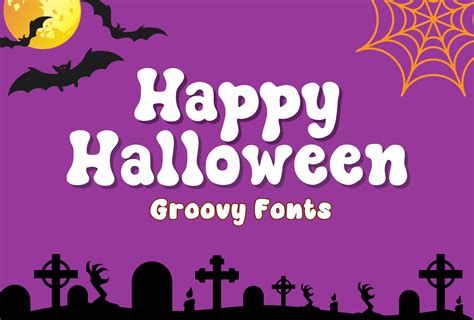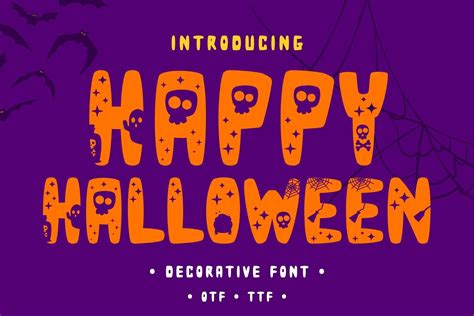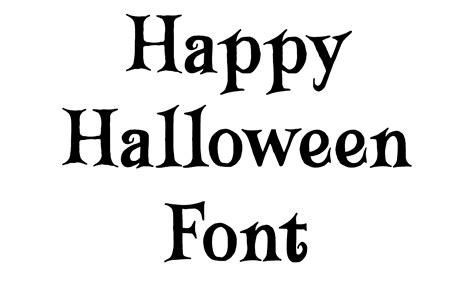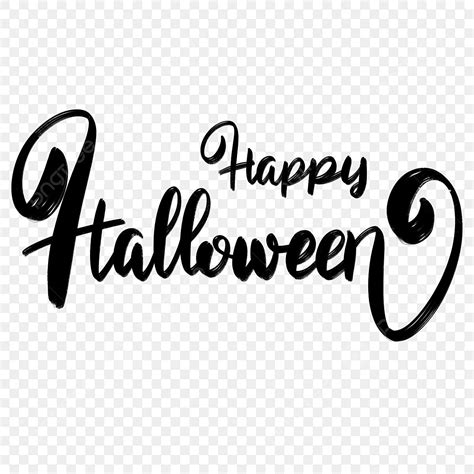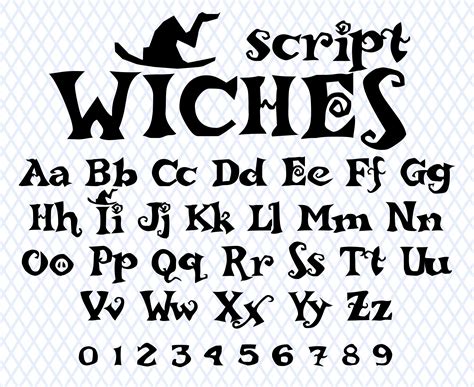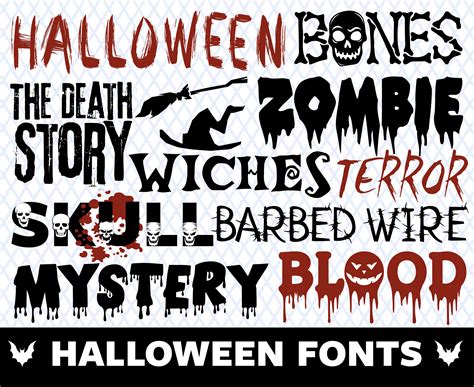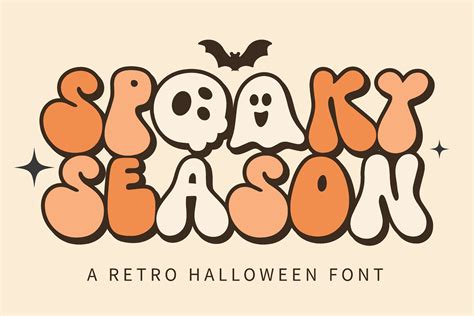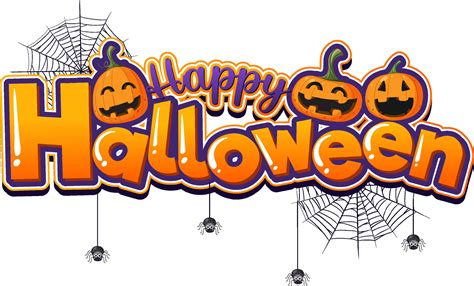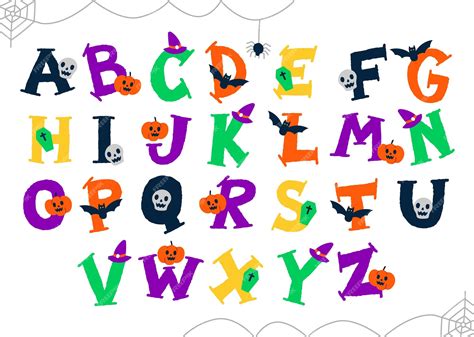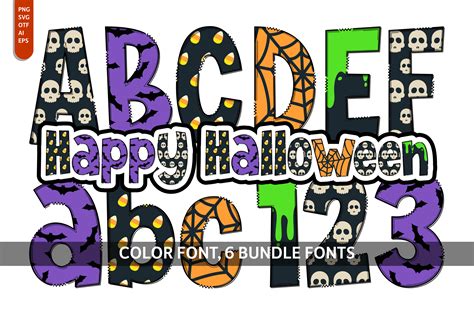
Halloween is a time of year when creativity and spooky aesthetics take center stage. One of the most exciting ways to embrace the spirit of the season is by incorporating a Happy Halloween Font into your designs. Whether you're creating invitations, decorations, or digital content, the right font can set the perfect eerie or playful tone. This guide will walk you through everything you need to know about selecting, using, and customizing a Happy Halloween Font to make your Halloween projects stand out.
Understanding the Importance of a Happy Halloween Font
A Happy Halloween Font is more than just a typeface; it's a way to convey the essence of the holiday. The right font can evoke feelings of excitement, mystery, and fun, making your projects more engaging and memorable. Whether you're designing for print or digital media, choosing the perfect Happy Halloween Font can enhance the overall aesthetic and make your creations more impactful.
Types of Happy Halloween Fonts
There are several types of Happy Halloween Fonts that you can choose from, each with its unique characteristics. Here are some of the most popular categories:
- Spooky Fonts: These fonts often feature jagged edges, uneven lines, and a dark, eerie feel. They are perfect for creating a haunted atmosphere.
- Playful Fonts: These fonts are more lighthearted and fun, often featuring bright colors and whimsical designs. They are ideal for children's parties and family-friendly events.
- Elegant Fonts: These fonts have a more refined and sophisticated look, often with intricate details and a classic feel. They are great for formal invitations and high-end events.
- Handwritten Fonts: These fonts mimic the look of handwriting, adding a personal and rustic touch to your designs. They are perfect for DIY projects and homemade decorations.
Where to Find Happy Halloween Fonts
When searching for a Happy Halloween Font, consider the following tips:
How to Choose the Right Happy Halloween Font
Selecting the right Happy Halloween Font depends on the specific needs of your project. Here are some factors to consider:
- Purpose: Determine the purpose of your design. Is it for a party invitation, a digital poster, or a social media graphic? The purpose will guide your font choice.
- Audience: Consider your audience. Are you designing for children, adults, or a mixed group? The font should appeal to your target audience.
- Style: Think about the overall style of your design. Do you want it to be spooky, playful, elegant, or rustic? Choose a font that complements your design style.
- Readability: Ensure that the font is easy to read, especially if you're including text-heavy content. Legibility is crucial for effective communication.
Customizing Your Happy Halloween Font
Once you've chosen your Happy Halloween Font, you can customize it to better fit your design. Here are some tips for customizing your font:
- Color: Experiment with different colors to enhance the spooky or playful vibe. Dark colors like black, purple, and orange are popular choices for Halloween.
- Size: Adjust the font size to ensure it stands out and is easily readable. Larger sizes are often more impactful for headlines and titles.
- Effects: Add effects like shadows, outlines, or gradients to give your font a more dynamic look. These effects can add depth and dimension to your design.
- Spacing: Adjust the letter spacing (kerning) and line spacing (leading) to improve readability and visual appeal. Proper spacing can make your text look more polished and professional.
Here is an example of how you can customize a Happy Halloween Font using CSS:
Happy Halloween!
💡 Note: Make sure to replace 'SpookyFont' with the actual name of the font you are using. Also, adjust the CSS properties as needed to match your design requirements.
Incorporating Happy Halloween Fonts into Your Designs
Now that you have your Happy Halloween Font and have customized it to your liking, it's time to incorporate it into your designs. Here are some ideas for using your font in various projects:
- Invitations: Create eye-catching invitations for Halloween parties or events. Use your font for the main text and add spooky graphics or illustrations to enhance the theme.
- Decorations: Design Halloween-themed decorations like banners, posters, and signs. Use your font to create catchy phrases and messages that will grab attention.
Embracing the spirit of Halloween through your designs is a fun and creative way to celebrate the season. Whether you’re planning a party, creating decorations, or sharing digital content, a well-chosen Happy Halloween Font can add that extra touch of magic and excitement. So, get started on your Halloween projects and let your creativity shine with the perfect font!